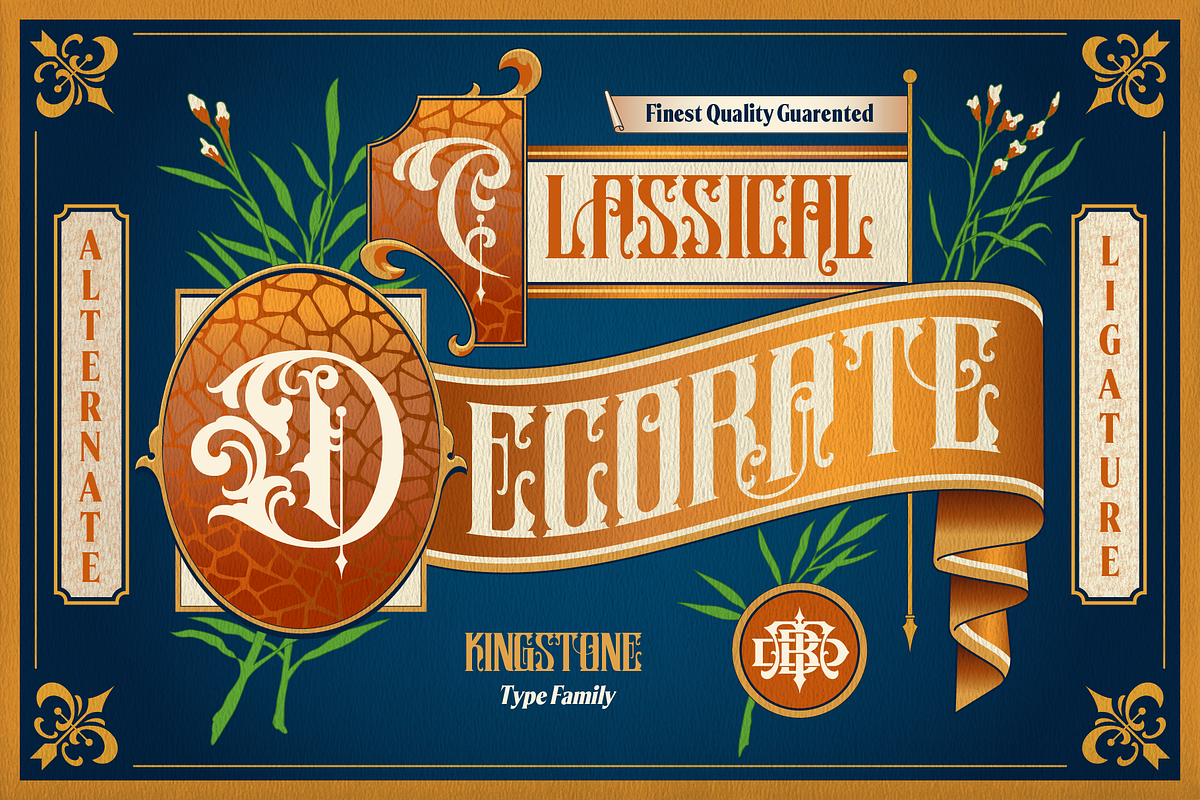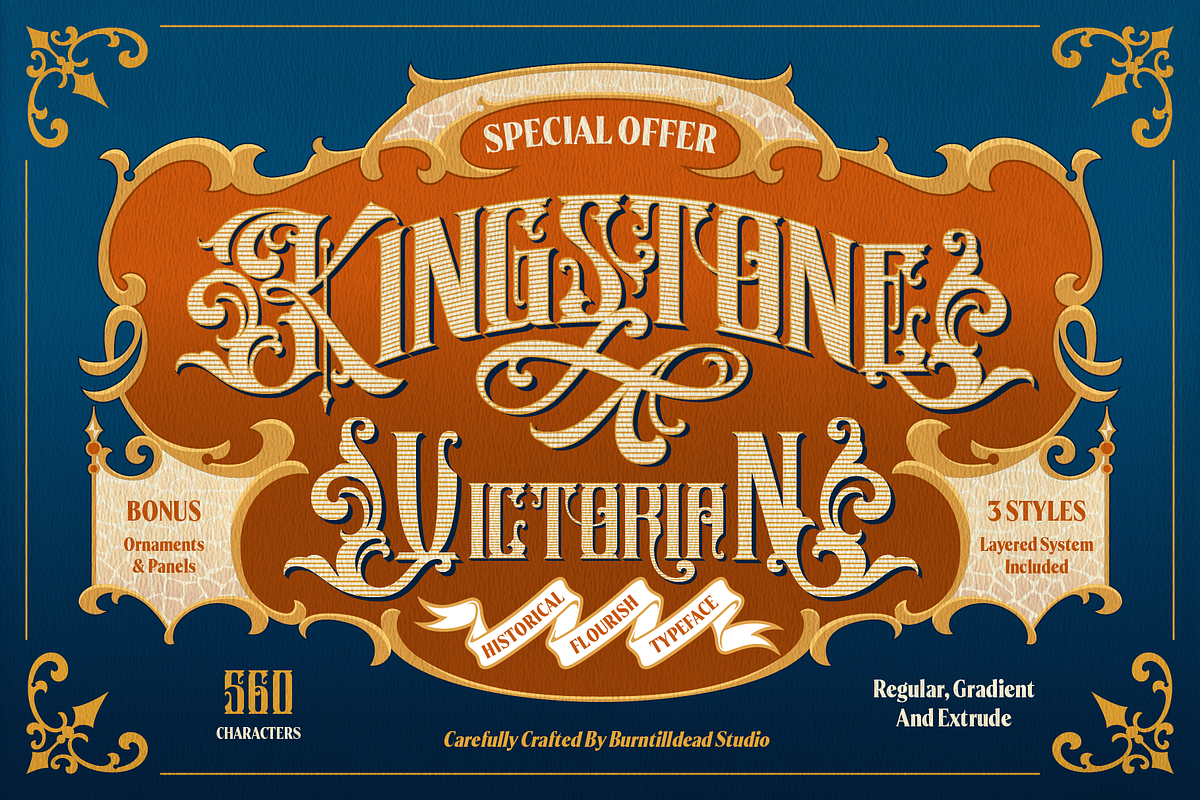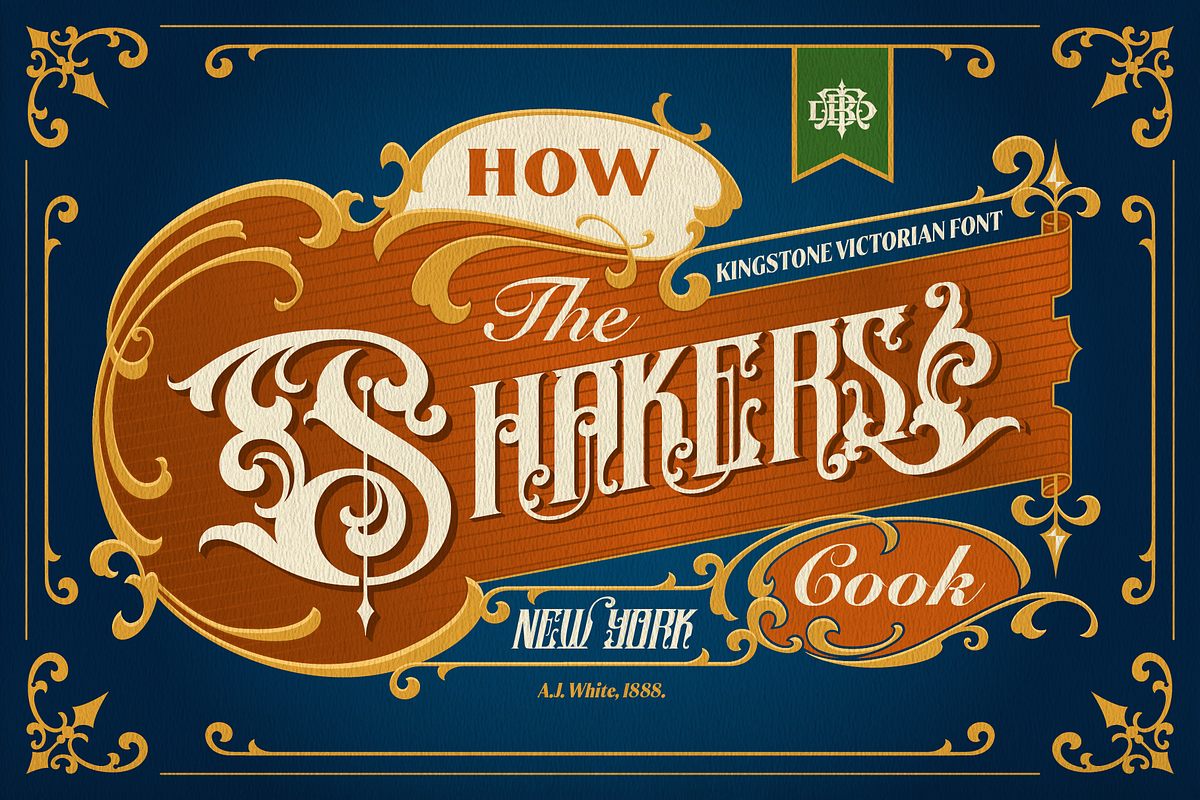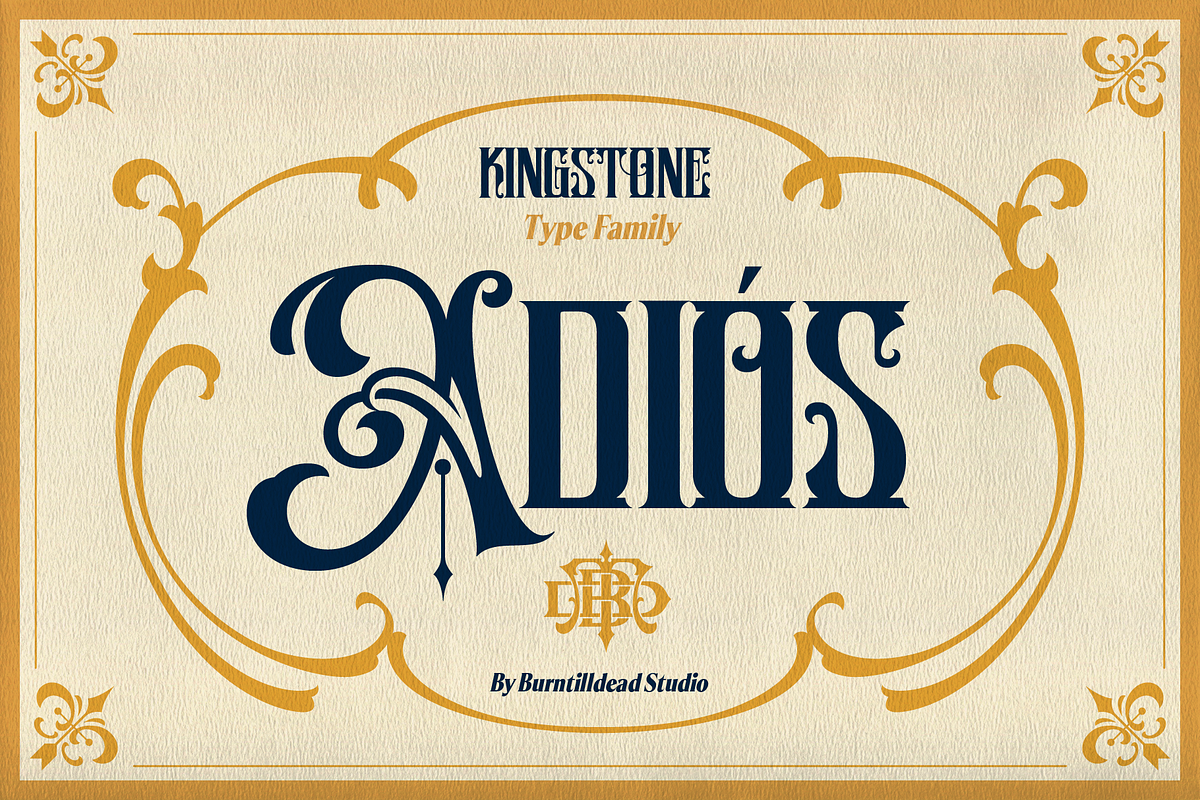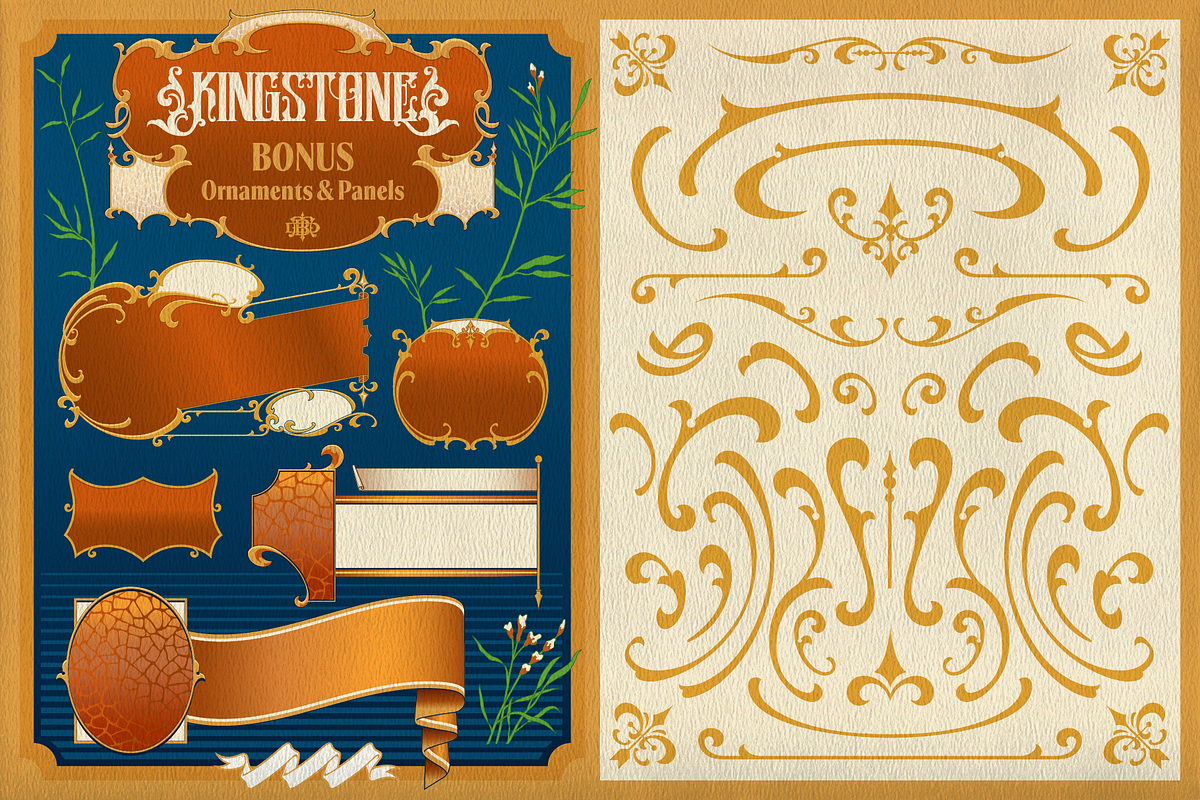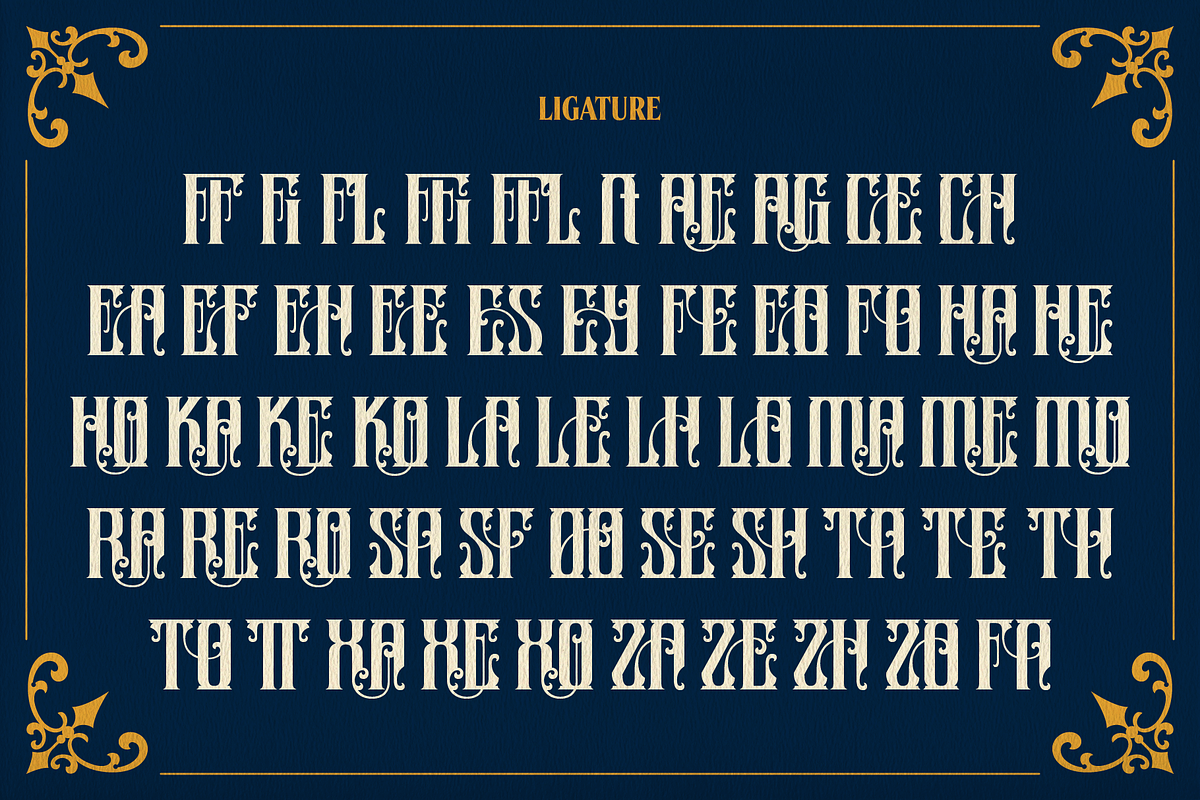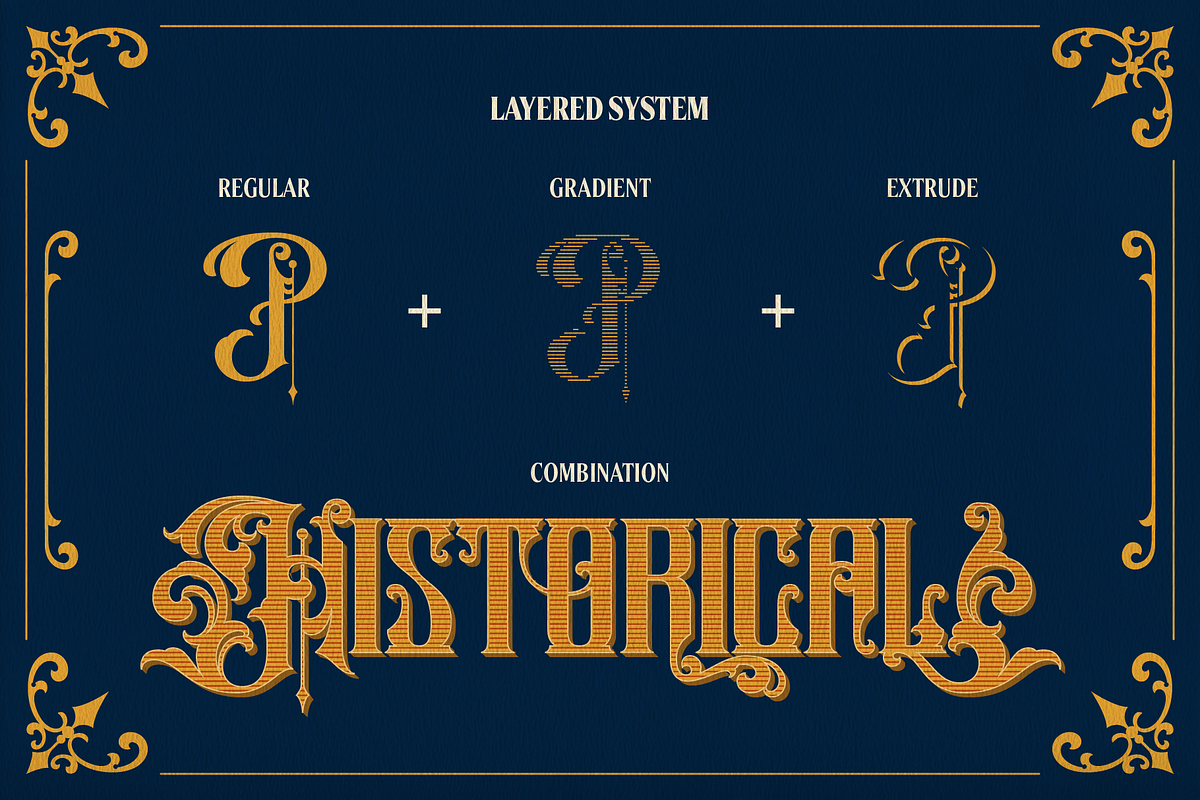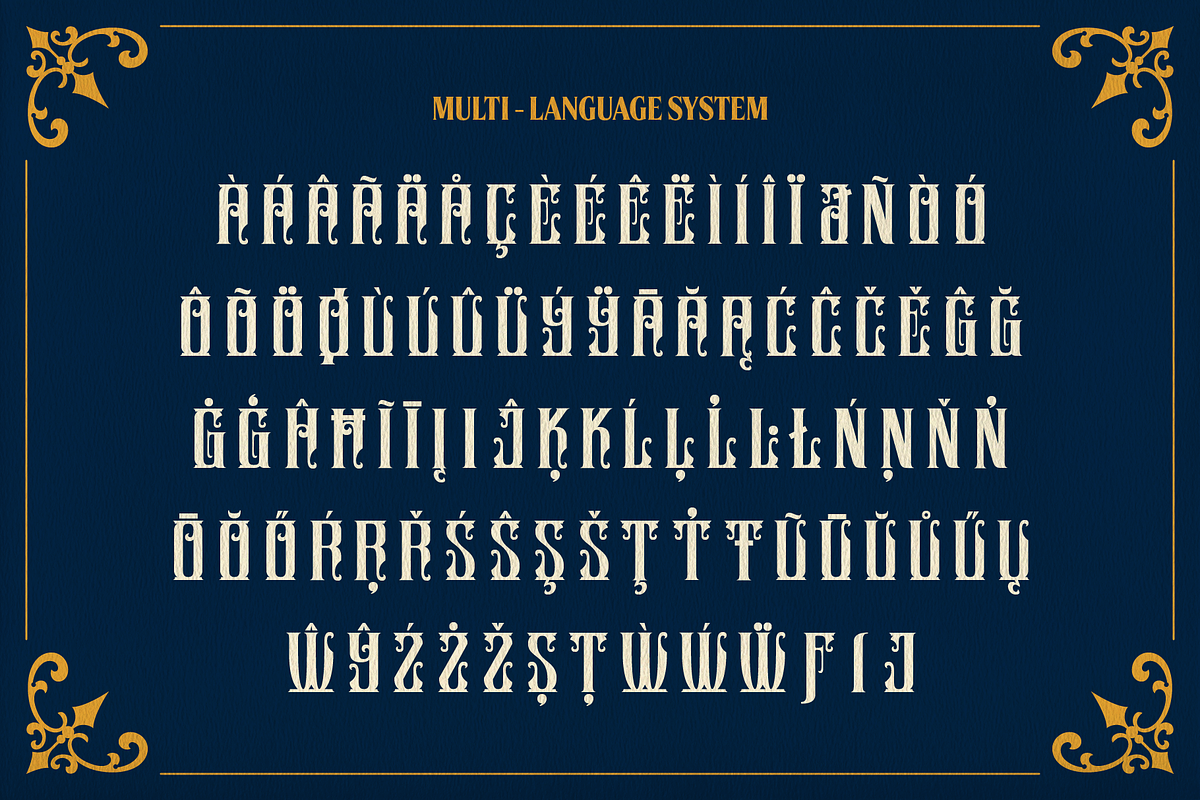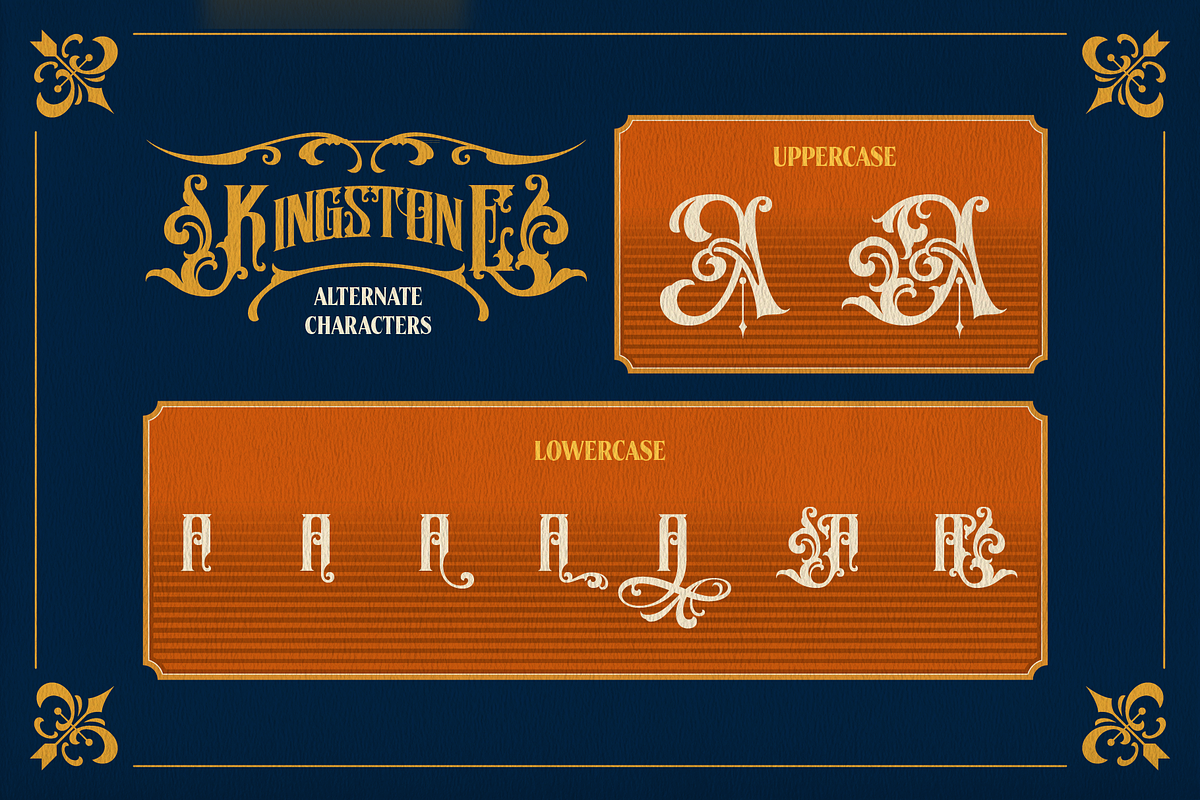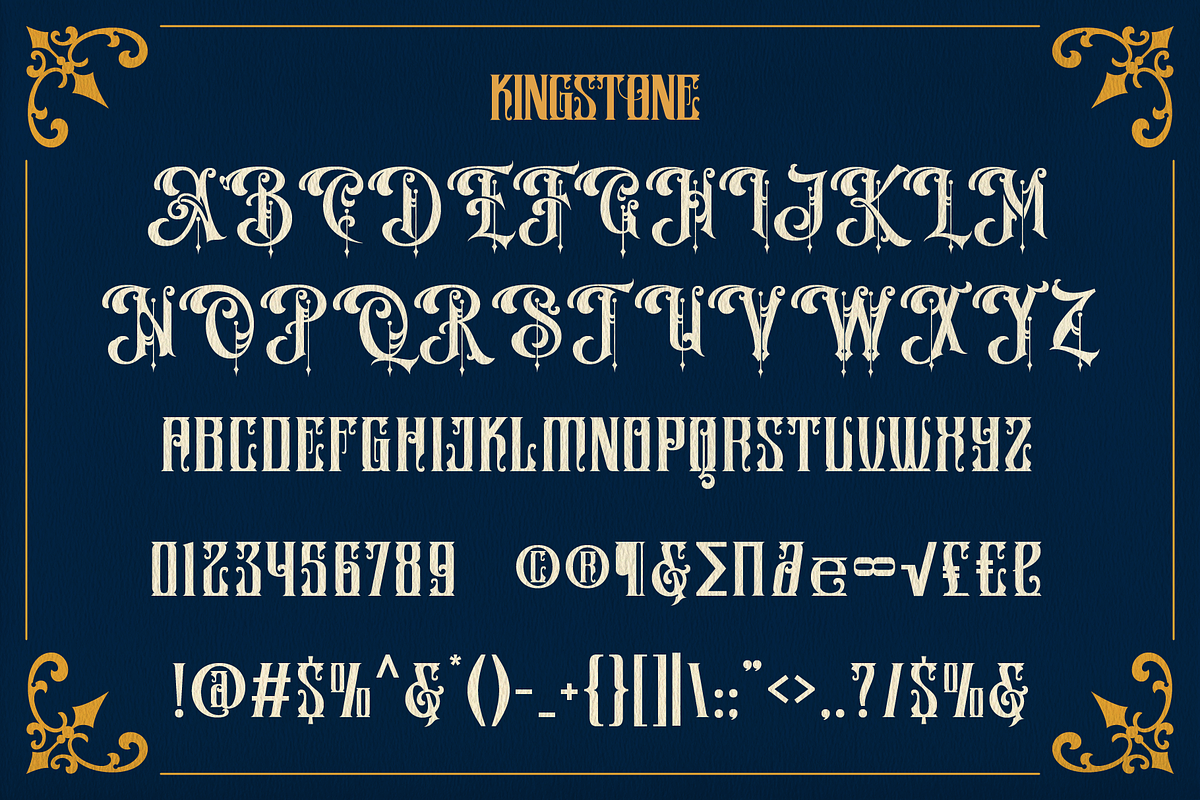
Kingstone
Introducing a majestic historical flourish display font with Victorian charm called Kingstone. The intricate details and elegant flourish, brings out a vintage and royal charm. Inspired by signage from Victorian era, make this font looks impressiveness and gentlemen elegant. This font has 3 styles: regular, extrude and gradient. Include with bonus ornament and panels. This font perfect for luxurious branding, luxury product, barber shop, tatoo parlor, invitation, book cover, magazine, and any design project that needs victorian and vintage charm.
- A - Z set (Uppercase & Lowercase)
- Kingstone Characters Map
Bonus:
- Kingstone ornaments and panels